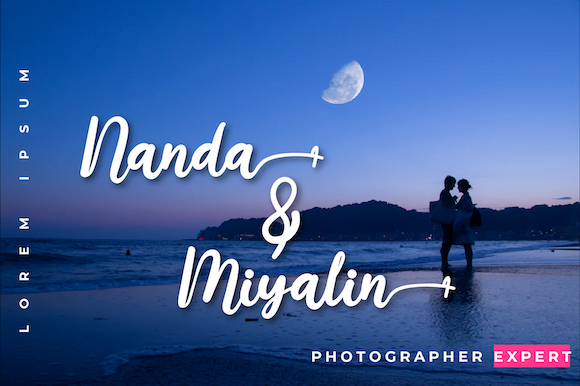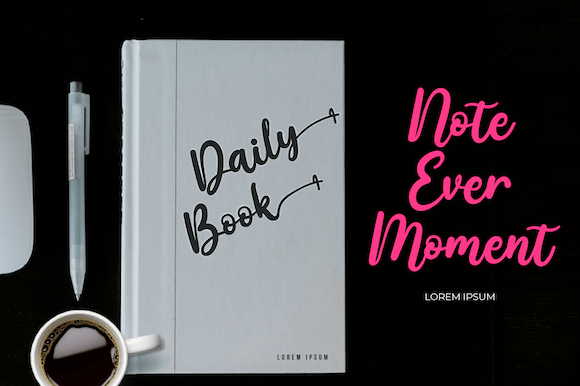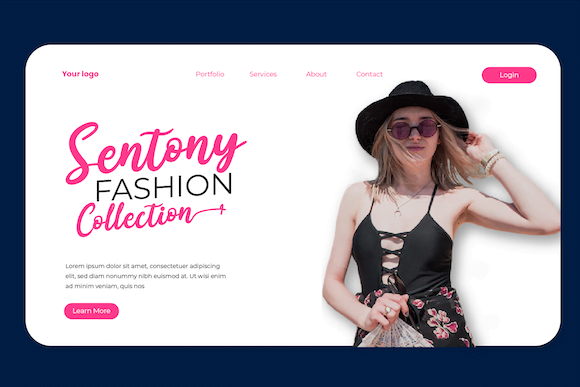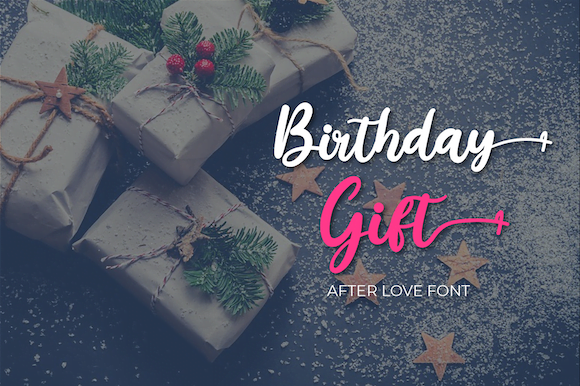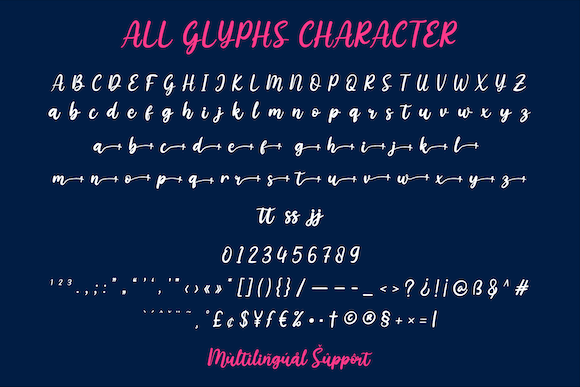
- Afire Love
Afire Love – Script Handwritten Font brings a romantic and emotional touch, designed for projects requiring heartfelt expression. This font features smooth lines and gentle curves, making it the perfect choice for wedding invitations, love cards, and branding projects that prioritize personal touches. Afire Love is meticulously crafted with attention to detail, creating a captivating and readable appearance. Each letter exudes warmth and intimacy, leaving a lasting impression on anyone who sees it. Its flexibility makes Afire Love a popular choice for various creative projects, whether formal or casual. If you’re looking for a font that conveys love and warmth, Afire Love is the ideal choice. It will provide the perfect finishing touch to your designs, making them more meaningful and memorable.